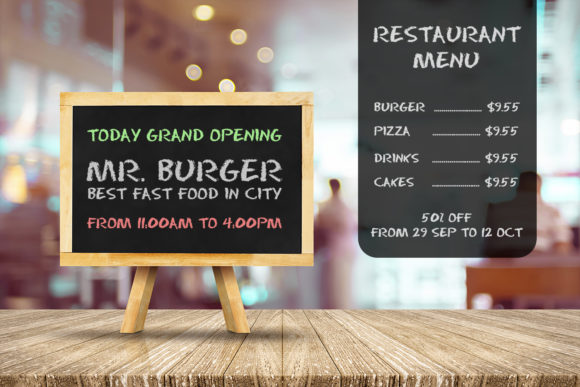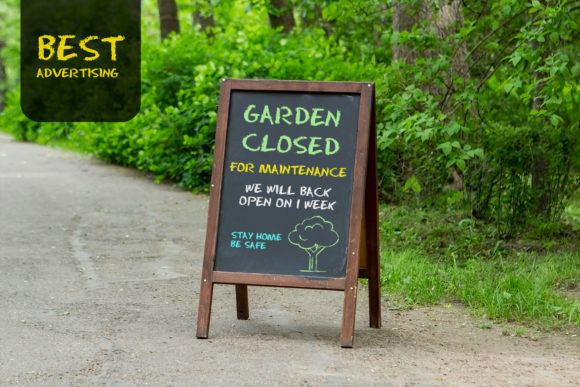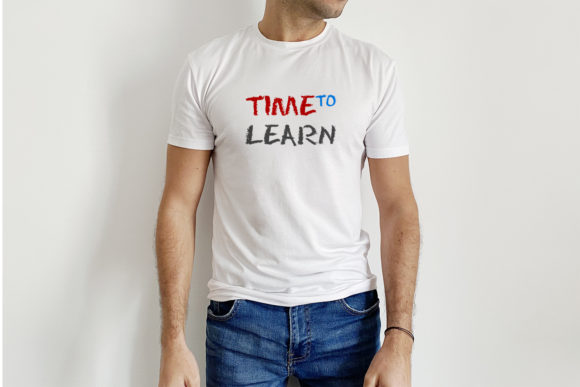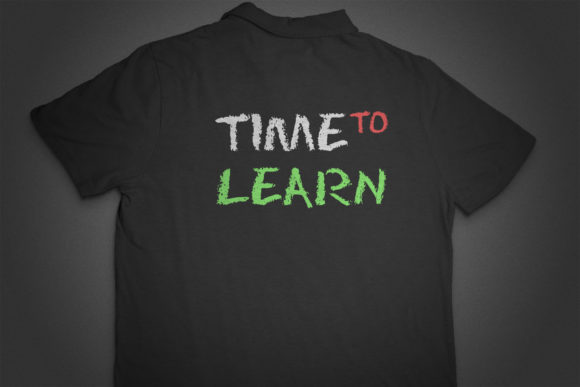
Bringing the Classic Classroom to Life: Chalk Board Font
Remember the excitement of writing on the chalkboard as a kid, the satisfying scratch of the chalk as it brought your ideas to life? For designers, recreating that nostalgic feeling is now easier than ever with the Chalk Board Font.
This great display font is perfect for school-related projects, from educational materials to event invitations. With its unique chalkboard look, it adds a touch of nostalgia and warmth to any design. Whether you’re a teacher, student, or simply a design enthusiast, the Chalk Board Font is a valuable addition to your toolkit.
Key Features of Chalk Board Font
- Font Style: A distressed, handwritten font with a chalkboard effect, giving it a unique and vintage look.
- Character Set: Supports a wide range of languages, including Latin, Cyrillic, and Greek alphabets, making it suitable for international use.
- Unique Characteristics: Features subtle texture and imperfections, giving it a realistic chalkboard feel, and can be used to create a sense of nostalgia and warmth.
Chalk Board Font Review
Overall, I’d say the Chalk Board font is a fun and quirky addition to any design project. ✨ It’s great for creating a casual, hand-written feel that’s perfect for social media graphics, posters, and other promotional materials.
- ✨ Unique and playful feel that sets it apart from more traditional fonts
- ✨ Highly legible, even at small sizes
- ✨ Available in a range of weights and styles to suit different design needs
- ⚠️ May not be suitable for formal or professional designs where a more polished look is required
- ⚠️ Can be difficult to read in certain lighting conditions due to the irregular letterforms
- ⚠️ Not ideal for body text, as it can be fatiguing to read in large blocks of text
Overall, I think the Chalk Board font is a great choice for designers looking to add some personality to their work. Just be mindful of its limitations and use it in contexts where its playful feel will shine through.
Chalk Board Font is ideal for:
- Creating playful and eye-catching headlines.
- Designing educational materials and worksheets.
- Adding a nostalgic touch to your designs.